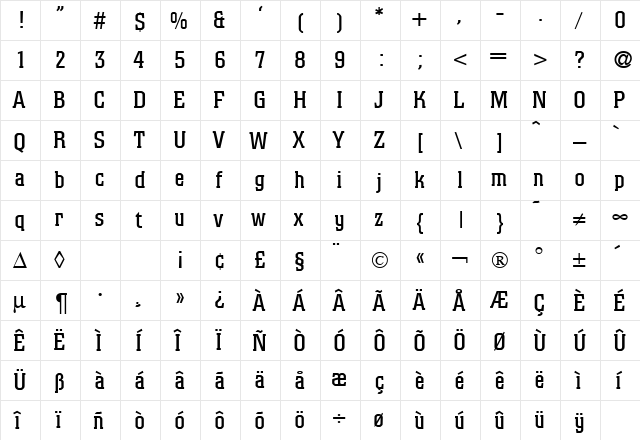
Colorado DB Regular
Design Context for Colorado DB Typeface
Colorado DB takes a measured approach to typography — its balanced proportions and neutral character make it a reliable workhorse for both digital and print work.